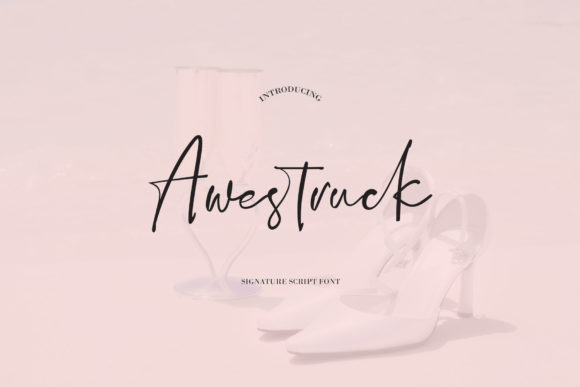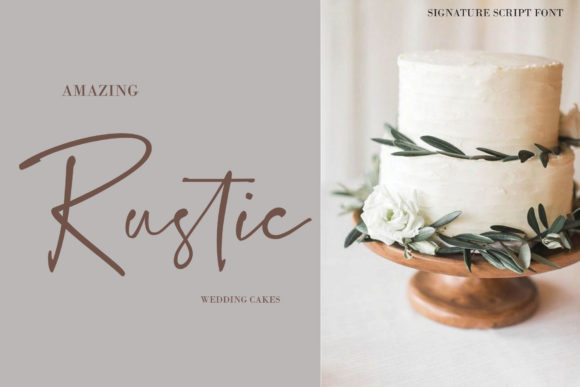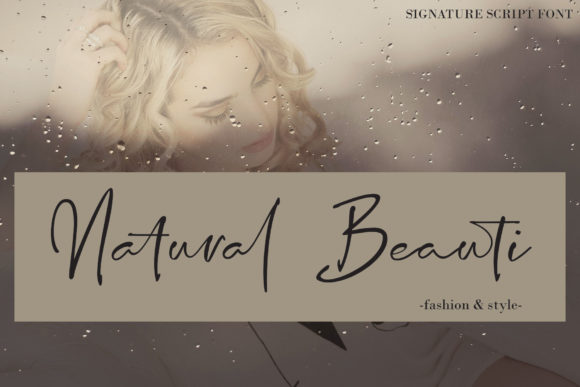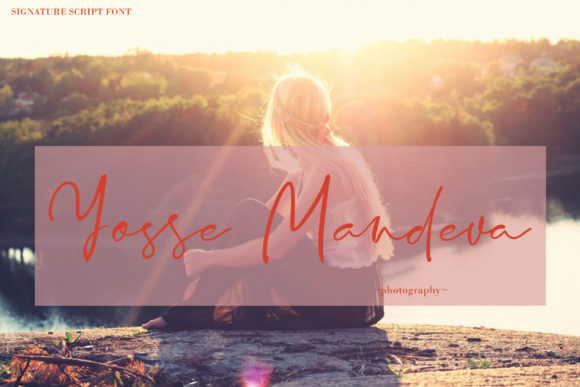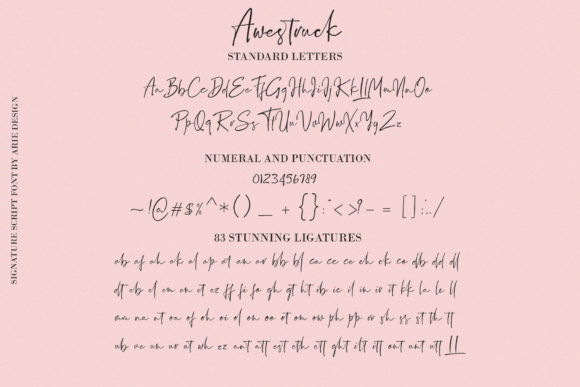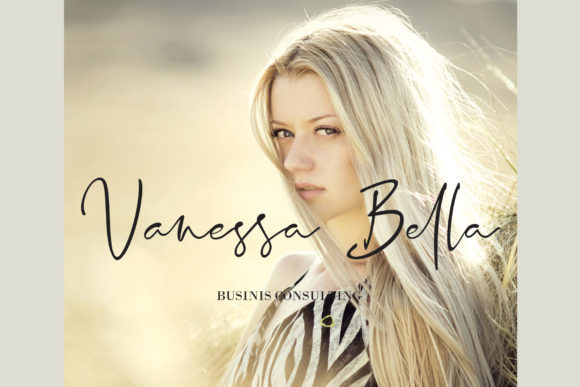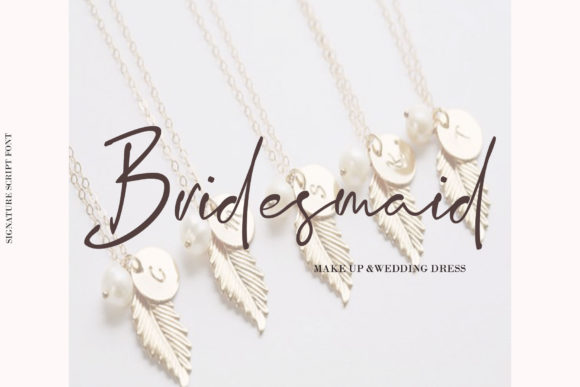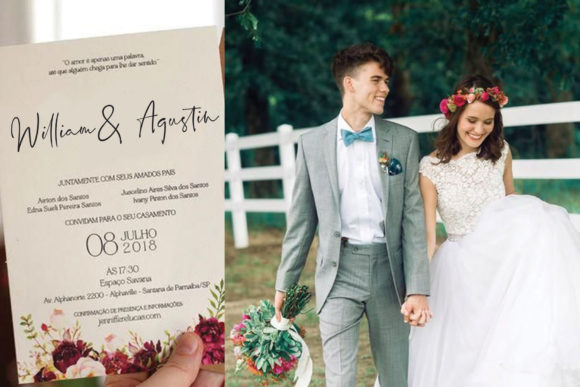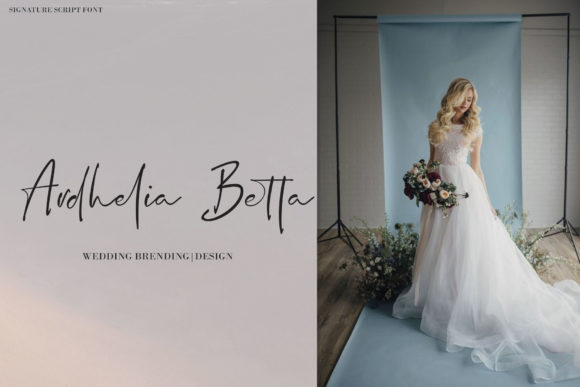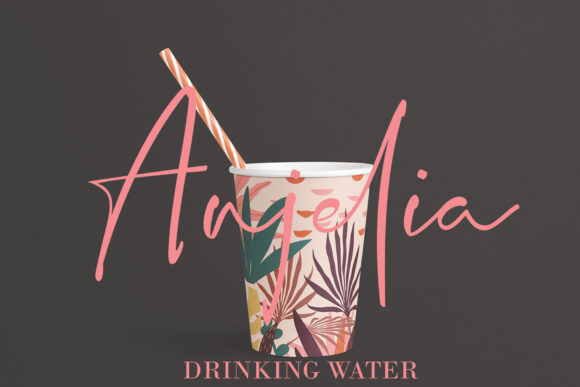
HomeScript FontsAwestruck Font Script Fonts Awestruck Font FacebookXPinterestWhatsApp Awestruck Font Poster 2 Awestruck Font Poster 3 Awestruck Font Poster 4 Awestruck Font Poster 5 Awestruck Font Poster 6 Awestruck Font Poster 7 Awestruck Font Poster 8 Awestruck Font Poster 9 Awestruck Font Poster 10 Awestruck Font Poster 11 Awestruck Font Poster 12 Awestruck Font Poster 13 Awestruck Font Poster 14 About Awestruck Font Awestruck is a light and cool script font with a great sense of style. It will elevate any design idea! DOWNLOAD ON CREATIVE FABRICAThis font is sold and delivered by Creative Fabrica. Font Canyon may earn a commission if you buy through this link. People also explored Lovely Miles Font Bellia Maddison Font Stitch Font Tokyo Geisha Amblass Font Butter Signature Font Aquarium Font Andalisa Font Vintage Party Font 285 0 TagsAwestruck Font Previous articleWinters FontNext articleMamthe Font LEAVE A REPLY Cancel reply Comment: Please enter your comment! Name:* Please enter your name here Email:* You have entered an incorrect email address! Please enter your email address here Website: Save my name, email, and website in this browser for the next time I comment. Personal Use Free Zojihun Personal Use Free Read more about this font Williana Personal Use Free Read more about this font Christmas Diary Personal Use Free Read more about this font Mallvirra Personal Use Free Read more about this font BLOG Top 7 Google Fonts Alternatives for Faster and Privacy-Friendly Web Design (2025) Top 7 Google Fonts Alternatives for Faster and Privacy-Friendly Web Design (2025) When it comes to web typography, Google Fonts has long been the go-to... 5 Fonts That Will Dominate Design Trends in 2026 Free vs Paid Fonts: Why Investing in Premium Fonts Is Worth It Elegant Wedding Invitation Fonts – Handwritten & Script Fonts